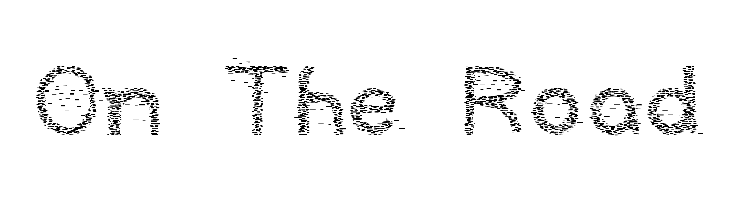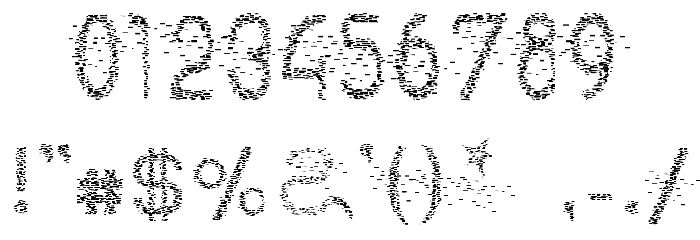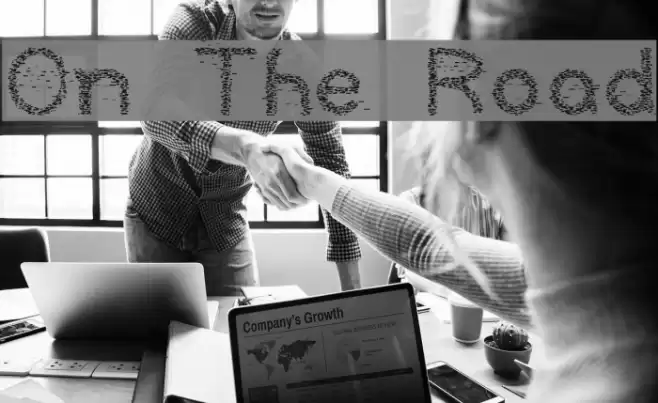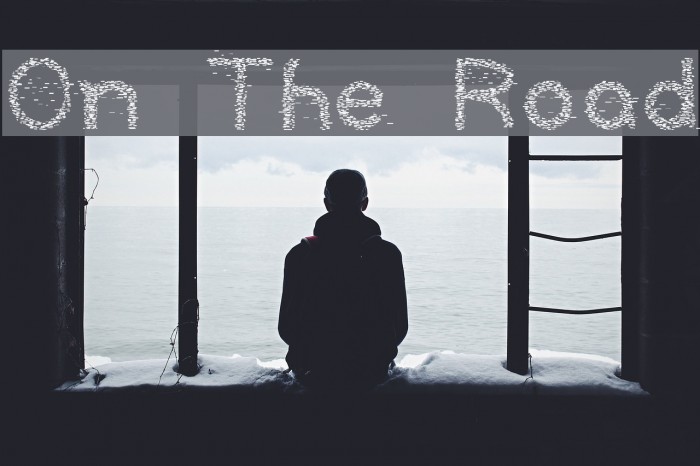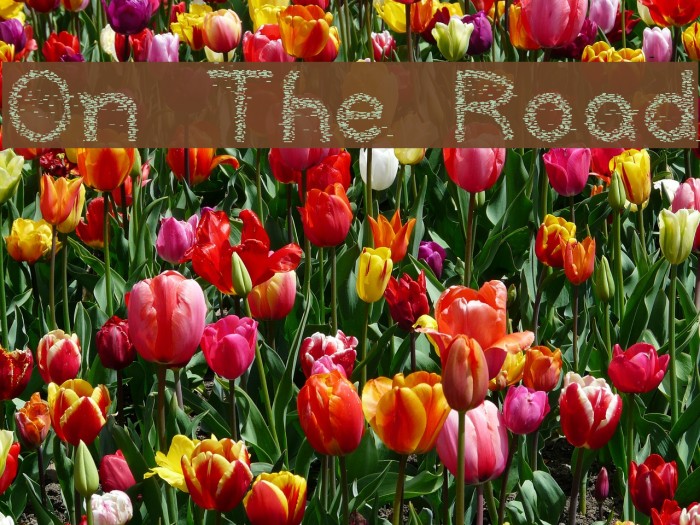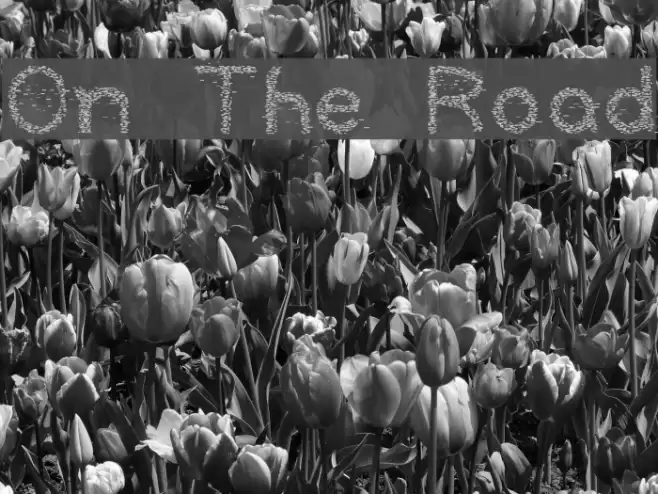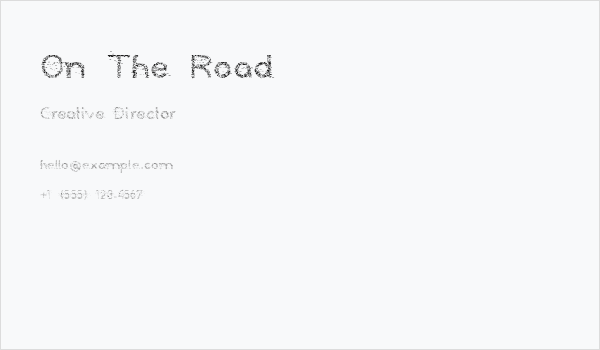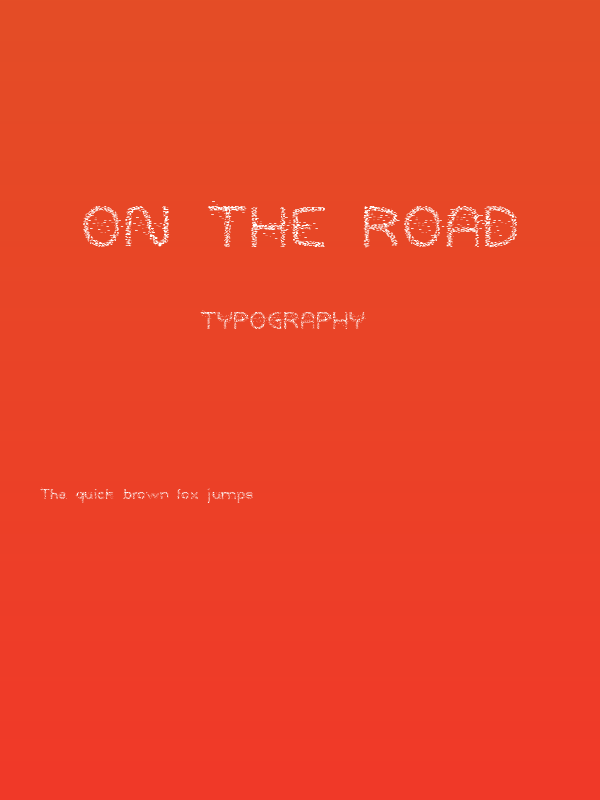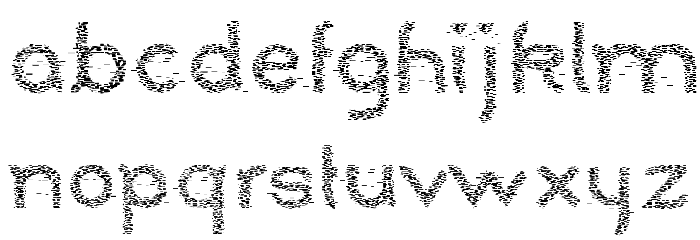
On The Road Font
On The Road Description
This font features a unique, textured design that gives the appearance of being hand-drawn with a stippling effect. The characters are composed of small dots, creating a visually interesting and artistic look. The uppercase and lowercase letters maintain a consistent style, with rounded edges and a playful, informal feel. Numbers and special characters are also included, following the same dotted pattern. This font is ideal for creative projects that require a distinctive and artistic touch.
| Overall Style | Artistic, Creative |
| Use Case | Headlines, Posters, Creative Branding |
| Proposed Projects | Ideal for artistic projects, posters, album covers, and creative branding. |